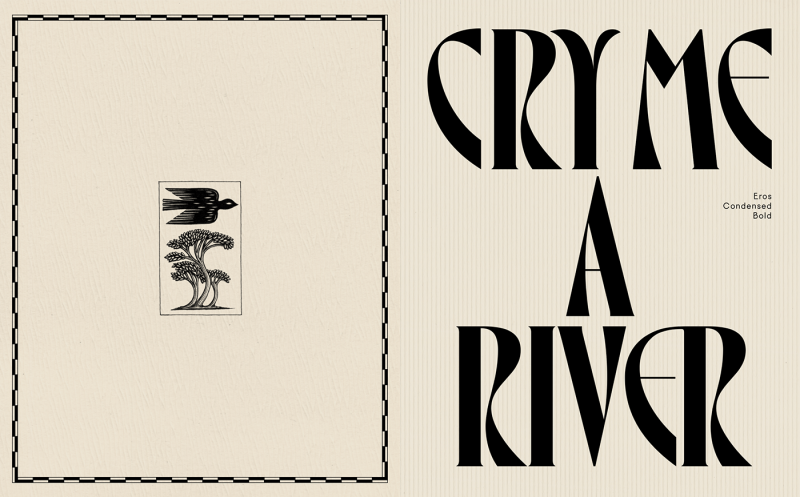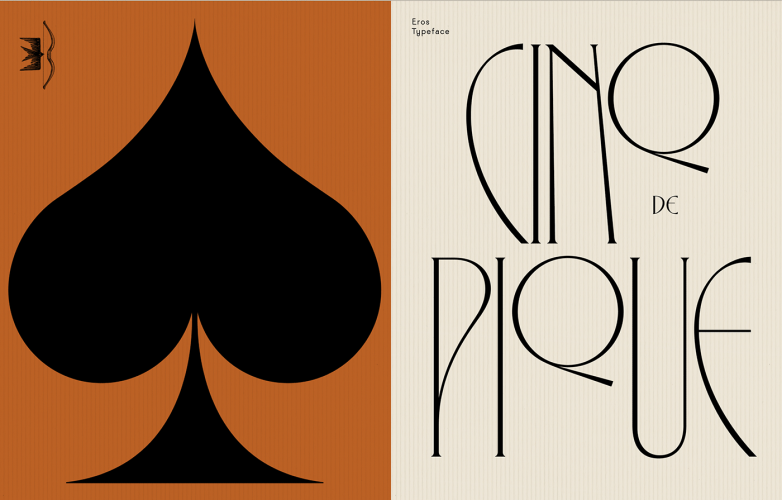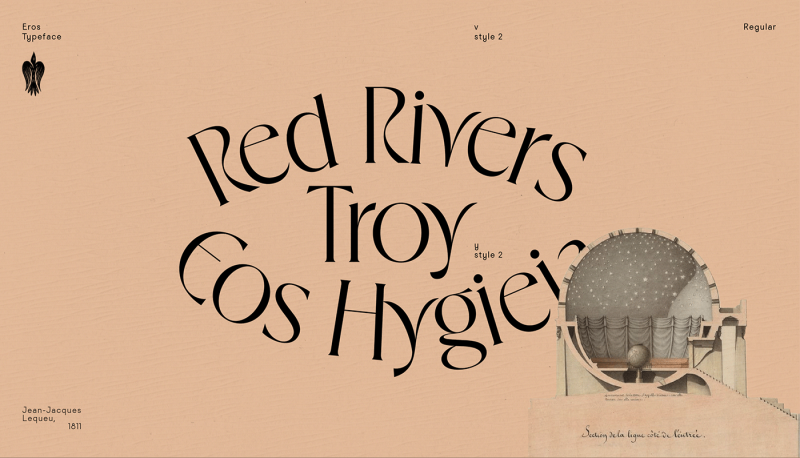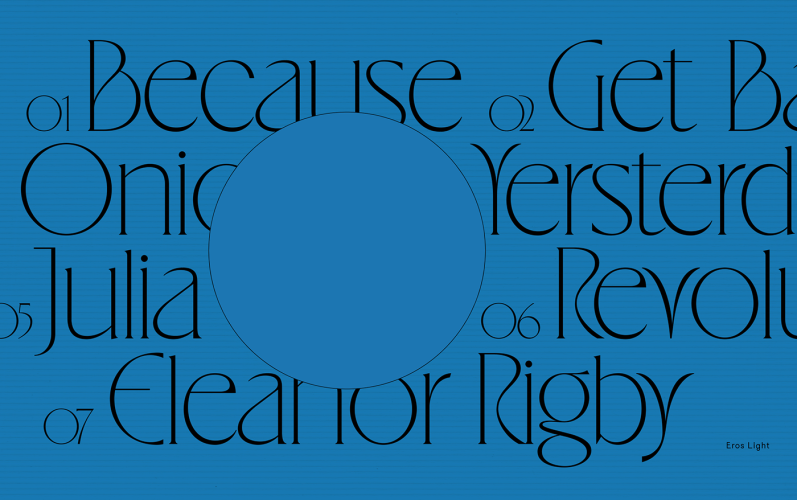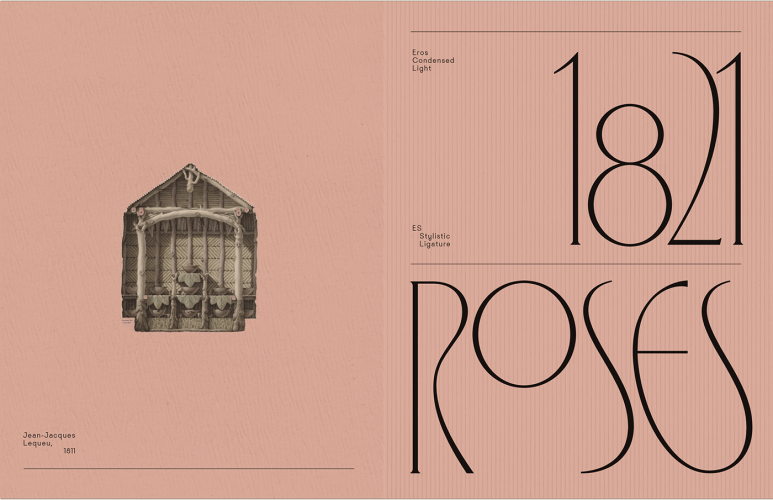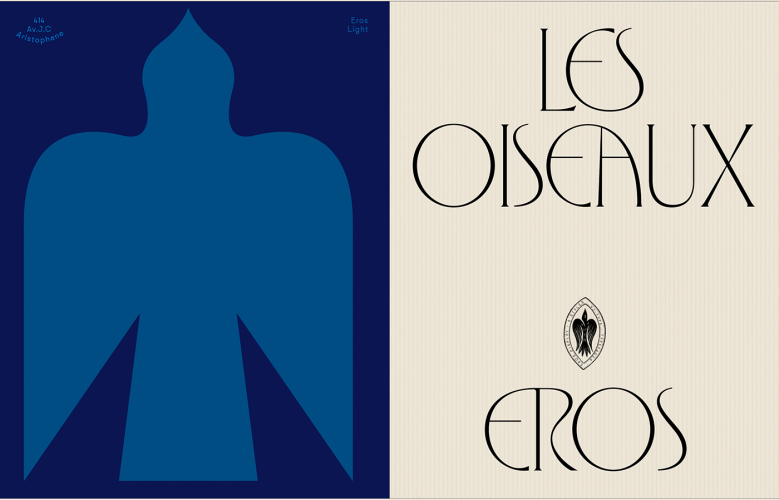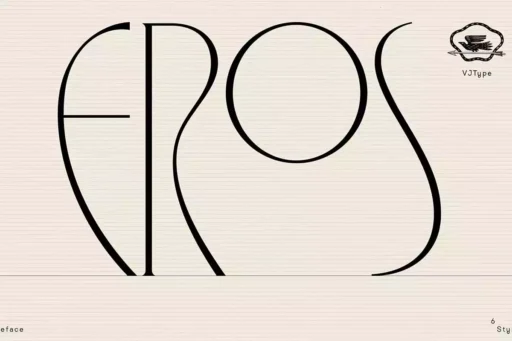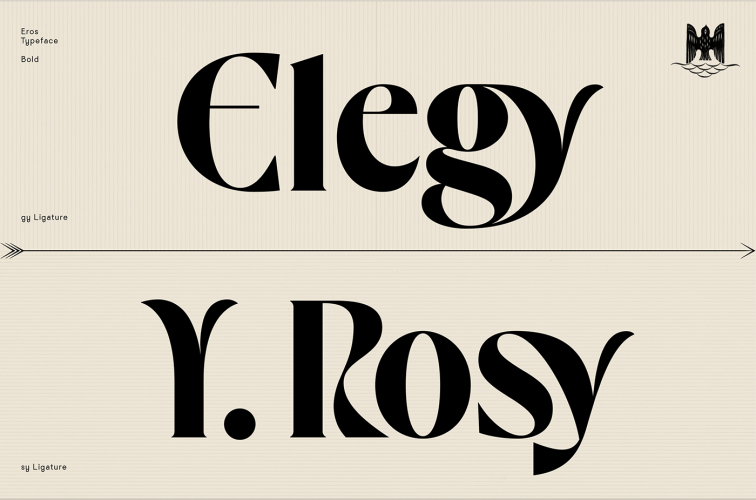
Eros Font
Eros is a beautiful and modern display font released in 2022 that embodies its namesake, representing a harmonious union of two custom typefaces meticulously crafted over the years. A condensed version of Le Théâtre, La Bouffes du Nord and a standard model for a joint project by Pharrell Williams and Jean-Émile Imbert in Saint Tropez. Sparked by the heritage of the legendary Jugenstil and Vienna Sezession styles of the fin-de-siècles era, Eros flows together with modern sophistication into a stylish design that is overflowing with elegance.
Traditional yet modern, the Eros is a piece of art that appreciates beauty and functionality, which are the roles of modern designers. Its sleek and refined look is joined with an organic sensibility, but it still manages to keep going regarding the practical side of its nature. Further, Eros compacts the traits of standard Eros but at the same time brings in its own alluring modifications, accentuating its unique non-adaptation.
Eros Condensed most salient characteristics consist of the unique code of “O“, which will flow with the adjacent letters, whether in uppercase or lowercase. This visually exciting feature allows for the slant of the characters, promoting a more soothing and harmonious text. Furthermore, creating a high-quality ligature receives our keen attention, and 20 sets of ligatures designed for both types of characters for upper-case and lower-case letters make the smoothest and the most excellent looking words in imagination.
Where Eros Font works best
Eros Font is built for size: event posters, hero headlines and billboard-style layouts.
High contrast display type like Eros Font reads instantly in thumbnails and motion graphics.
What is Eros Font good for?